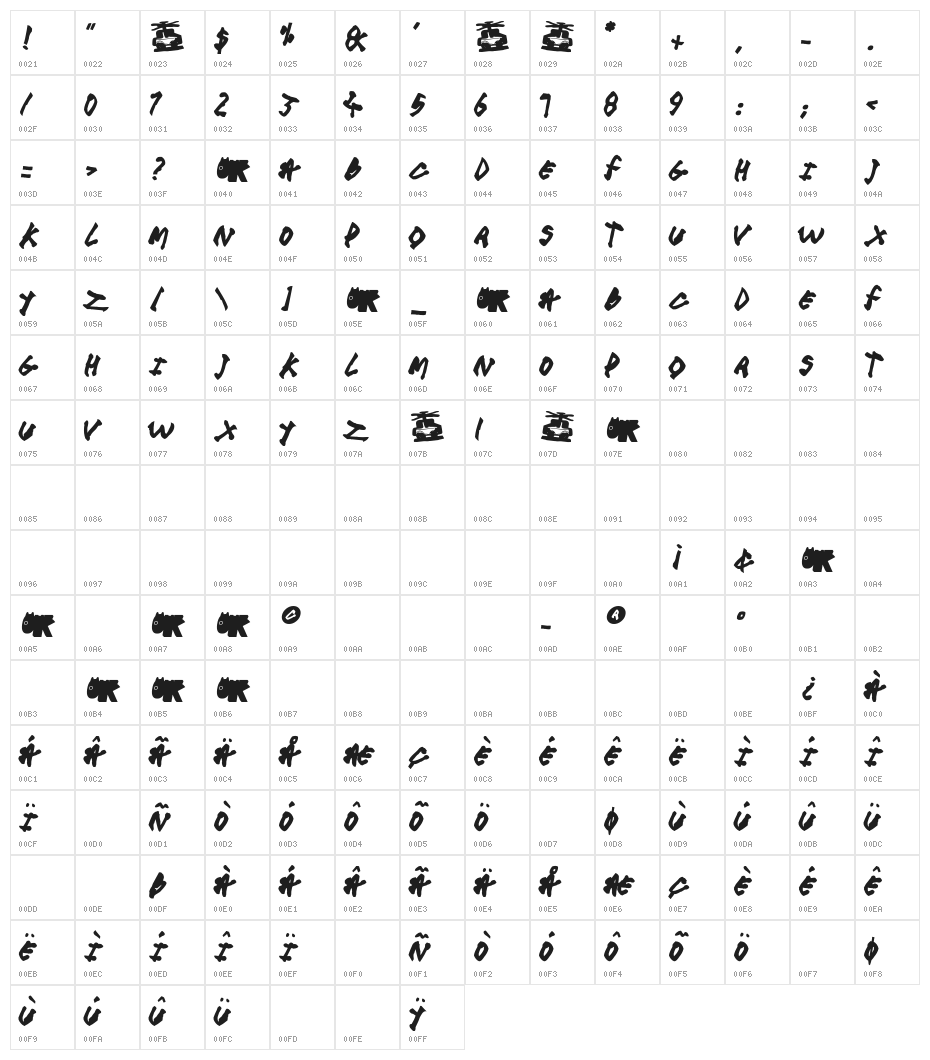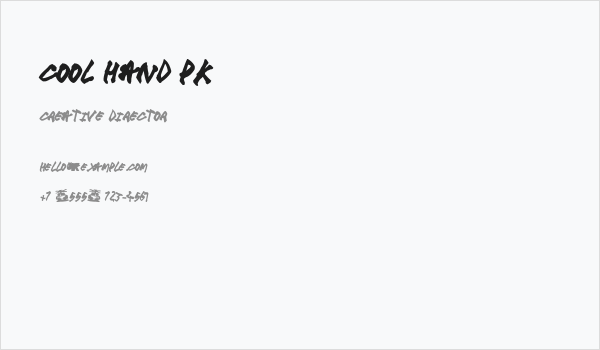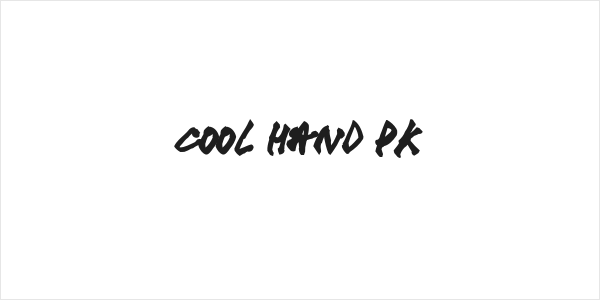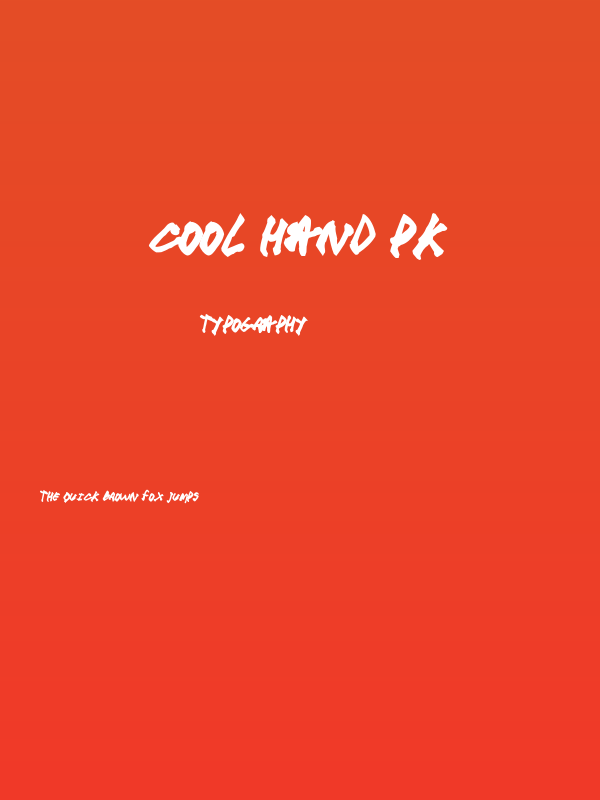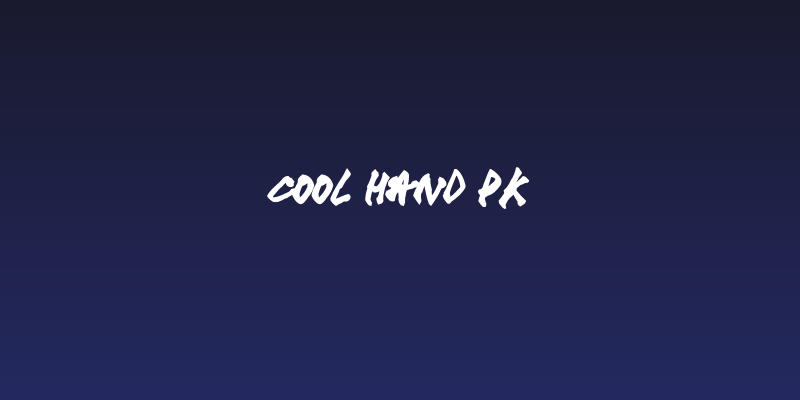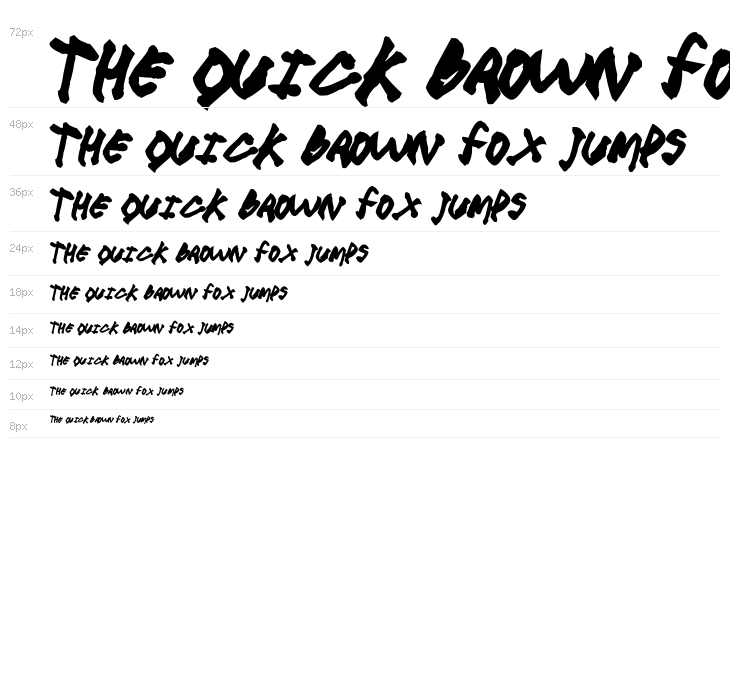
cool hand pk Font
cool hand pk Description
This font exudes a bold and expressive handwritten style, characterized by thick, dynamic strokes that convey a sense of energy and spontaneity. The letters are crafted with a casual flair, featuring irregular shapes and varying angles that add to its unique charm. The uppercase and lowercase letters maintain a consistent style, while the numerals and special characters complement the overall aesthetic. This font's bold presence makes it stand out, ideal for projects that require a personal touch or a statement piece.